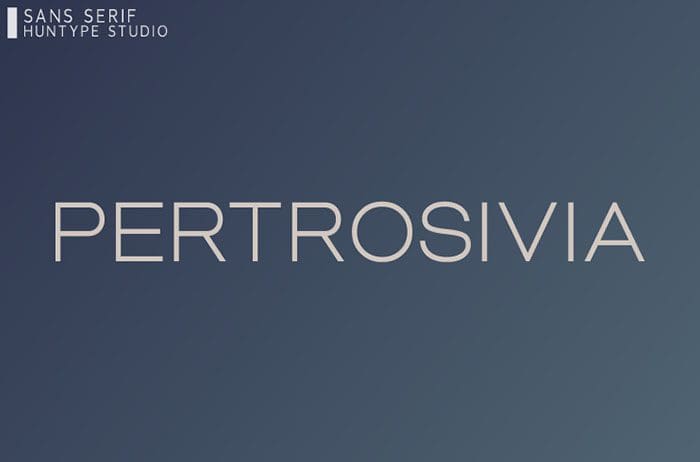
Pertrosivia Sans Serif Font
Pertrosivia is a smooth sans serif font. It will complement any design need perfectly with its perfectly balanced mix of smooth and sharp! Thanks to Mas Anis for sharing this font! Take a look at this portfolio for more of his stunning fonts.